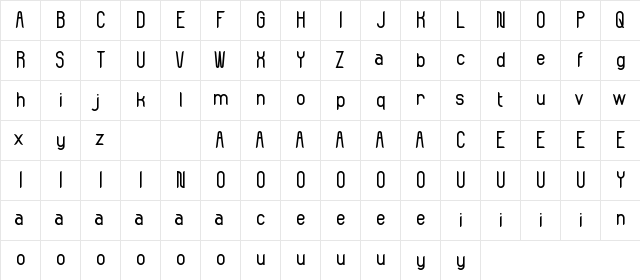
Neitherly Demo Medium Regular
Design Context for Neitherly Demo Medium Typeface
Neitherly Demo Medium takes a measured approach to typography — its balanced proportions and neutral character make it a reliable workhorse for both digital and print work.